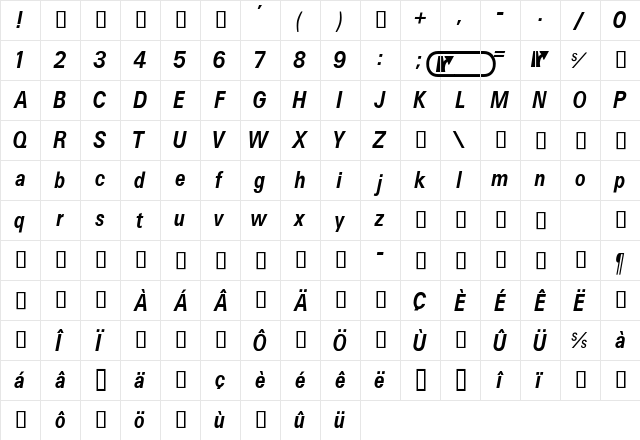
Caracteres L4 Regular
Design Context for Caracteres L4 Typeface
Caracteres L4 offers clean, dependable letterforms without strong stylistic allegiance, making it a practical choice for designers who need flexibility.
Pro Tip: Use Caracteres L4 in both headline and body roles to test its range before committing to a single application.